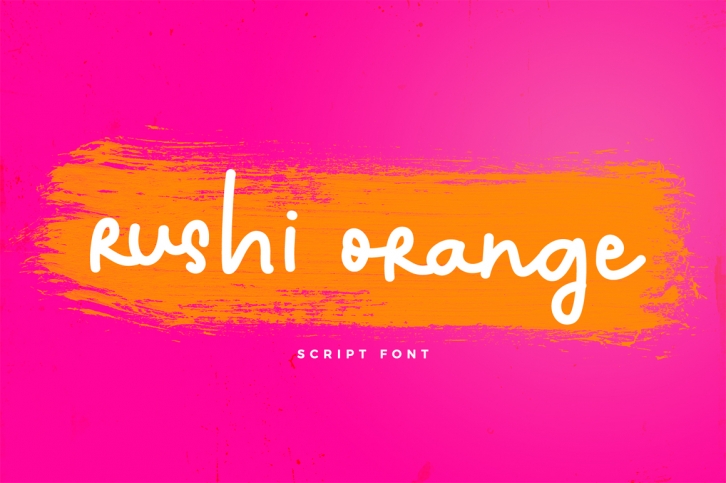
Rushi Orange is a trendy and unique font with an authentic style. It was designed by pixelcolours and it's a great choice for creative people who need such a font. It was released on June 19, 2018 and the file size is 3.33 MB. Rushi Orange will add an organic vibe to any design idea!